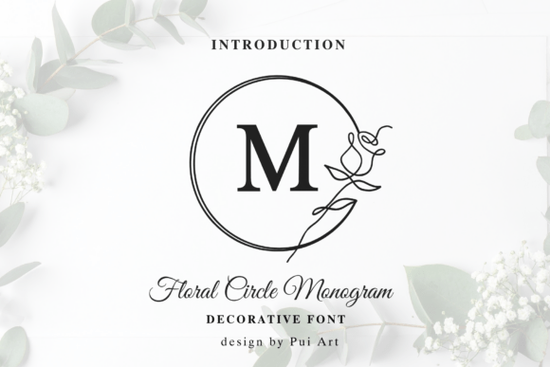
When you need a polished, handcrafted look for your branding but lack drawing time, a ready-made monogram typeface saves hours of sketching. The Floral Circle Monogram Font delivers that shortcut by wrapping classical serif letters inside delicate, continuous-line botanical frames. Each character sits neatly within a circular wreath, highlighted by a single flowing rose. Creators who sell custom wedding invites, boutique packaging, or wax seal stickers use this style to achieve a high-end finish instantly. You simply type an initial, scale it, and place it into your layout.
How does this decorative typeface simplify custom branding projects?
Designing a logo or emblem from scratch means adjusting vector curves and balancing hand-drawn inconsistencies. This typeface removes those roadblocks by pre-spacing every character and keeping the circular frame tight around each glyph. If you have tried sketching a pet-inspired monogram or experimenting with vintage textured lettering, you know how much trial goes into getting proportions right. Here, the line weights stay uniform and the rose accent never blocks legibility. Shop owners can drop the font into Canva or Illustrator and match brand colors without redrawing curves.
The continuous-line rose detail works especially well on materials that rely on subtle elegance rather than bold contrast. Think embossed paper stock, matte cards, or resin tags. Because the design leans into fine lines, it prints cleanly on digital cutters and office printers. The circular boundary keeps every initial self-contained, making it easier to position over patterned backgrounds or beside geometric shapes.
What projects work best with floral circular lettering?
Print-on-demand and handmade markets choose this style for items that require an upscale, personal feel. The enclosed shape draws attention naturally, which helps on small formats where clarity matters. Common uses include:
- Wedding stationery like RSVP cards and seating charts
- Wax seal stamps that translate cleanly to silicone or metal dies
- Social media avatars and story highlight covers
- Packaging labels for minimalist boxes or matte pouches
- Personalized gifts engraved onto glass or wood trays
When scaling down for tags, keep stroke weight visible by avoiding dark, heavy backgrounds. Light pastels usually maintain better contrast. If you plan to cut vinyl, adjust your blade pressure so the fine rose stem does not tear during weeding.
Which secondary fonts keep the layout balanced?
Because the primary typeface carries ornate curves, your supporting text should stay quiet. A geometric sans serif prevents the design from feeling cluttered. Use decorative letters for initials or headers, then rely on simpler fonts for body copy and pricing. Set the monogram noticeably larger than supporting text. If you need to explore similar weights for contrast, browsing the circle botanical typeface collection helps you match paragraph text without overwhelming the layout. Always test pairings at actual print size, since fine details blur quickly on screens.
For layout reference, you can review how this Floral Circle Monogram Font performs alongside clean serif combinations before finalizing your spacing.